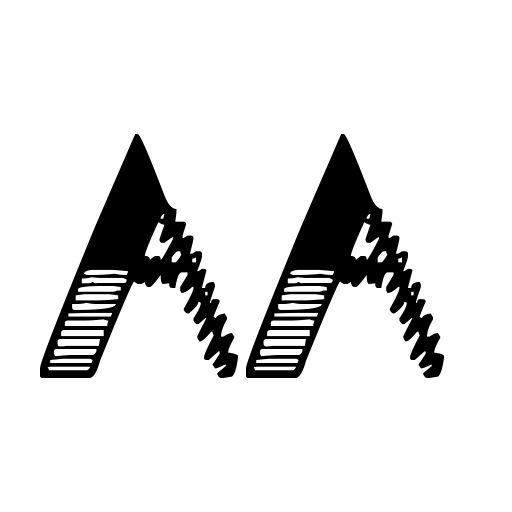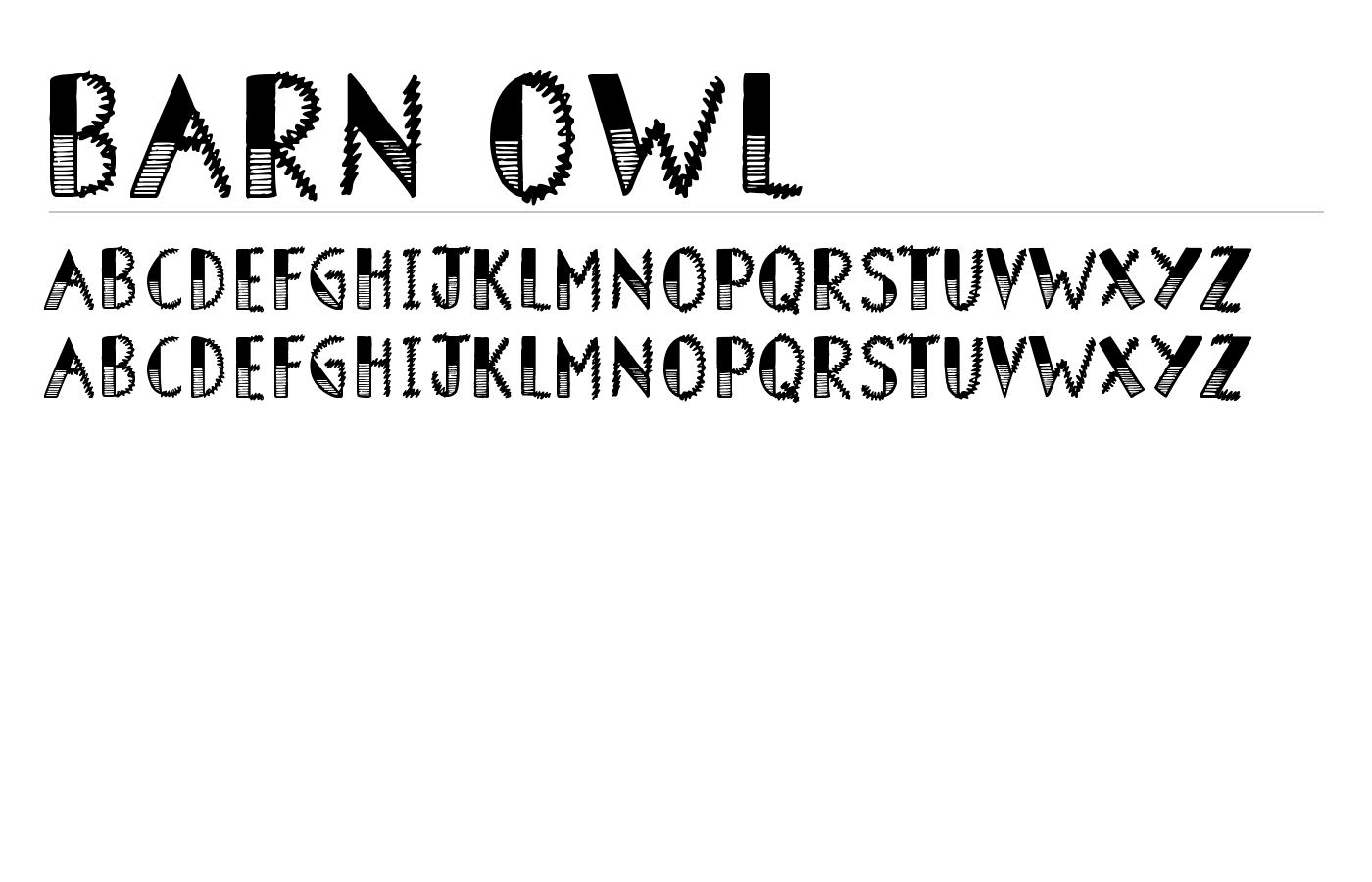
Barn Owl is a distinctive display font characterized by its bold, hand-drawn style featuring zigzag and striped patterns that create a textured, almost feathered effect reminiscent of its namesake bird. This uppercase-only font carries a playful yet slightly edgy personality, perfect for creative branding, posters, and headlines where a unique, eye-catching look is desired. Its quirky, artistic vibe works well for projects that want to convey individuality and charm with a strong visual impact.
Barn Owl Font
About Barn Owl Font